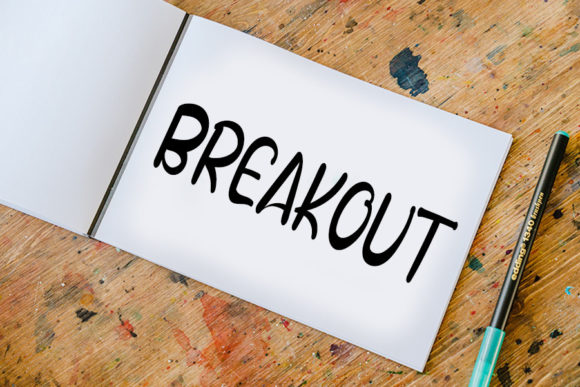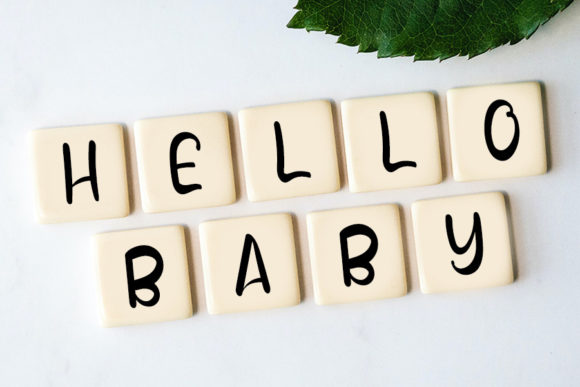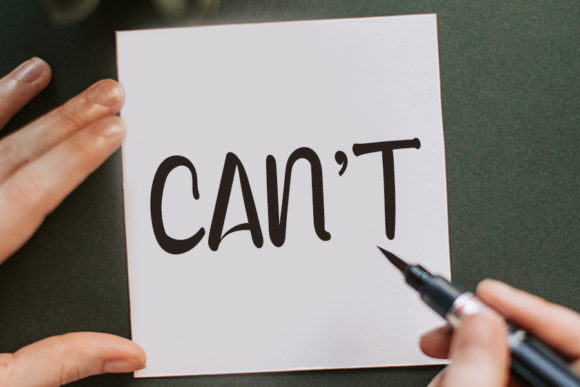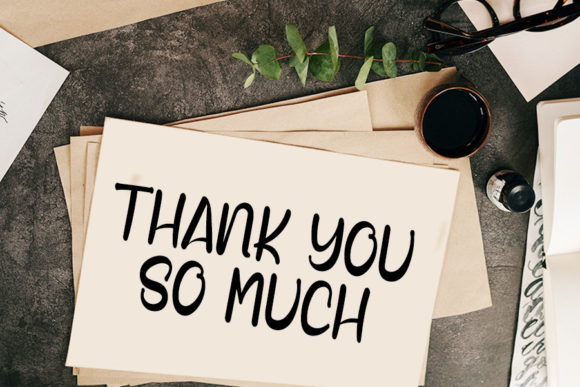
Introducing Happiness Font: The Perfect Blend of Playfulness and Sophistication
In the world of typography, fonts play a crucial role in conveying emotions and setting the tone for a project. If you’re a designer or crafter looking for a font that exudes happiness and joy, look no further than Happiness Font. This stunning display font is designed to bring a touch of playfulness and chicness to your projects, making it perfect for a wide range of applications.
A Contemporary Atmosphere with Impeccable Form
Happiness Font boasts a contemporary atmosphere that is both modern and stylish. Its impeccable form ensures that it is balanced and varied, making it suitable for use in a variety of contexts. Whether you’re working on a branding project, a website, or a craft project, this font is sure to impress. Its clean lines, subtle curves, and carefully crafted letterforms come together to create a truly unique and captivating typographic experience.
A Paint Brushed Font with a Personal Touch
One of the standout features of Happiness Font is its paint brushed design. This gives the font a personal and hand-crafted feel that is perfect for adding a touch of warmth and personality to your projects. The paint brushed effect also adds a level of texture and depth to the font, making it more visually interesting and engaging.
Balanced and Varied: The Key to Versatility
Happiness Font is designed to be balanced and varied, making it a versatile font that can be used in a wide range of applications. Its balanced design ensures that it is easy to read and understand, while its varied letterforms and ligatures add a touch of creativity and flair. This font is perfect for use in:
- Branding and logo design
- Website headers and titles
- Craft projects and DIY tutorials
- Print materials such as brochures and flyers
Enhance the Beauty of Your Projects
Happiness Font is designed to enhance the beauty of your projects and bring a touch of happiness and joy to your designs. Its playful and chic design makes it perfect for use in projects that require a lighthearted and upbeat tone. Whether you’re working on a project for a client or creating something for personal use, this font is sure to bring a smile to your face and inspire your creativity.
Why Choose Happiness Font?
So why choose Happiness Font over other fonts on the market? Here are just a few reasons:
- Unique and eye-catching design
- Playful and chic aesthetic
- Contemporary atmosphere and impeccable form
- Balanced and varied design
- Paint brushed effect for a personal touch
- Versatile and suitable for a wide range of applications
Get Ready to Add a Touch of Happiness to Your Designs
In conclusion, Happiness Font is a stunning display font that is perfect for designers and crafters looking to add a touch of playfulness and sophistication to their projects. Its contemporary atmosphere, impeccable form, and paint brushed design make it a truly unique and captivating typographic experience. With its versatility and balanced design, this font is suitable for use in a wide range of applications. So why wait? Get ready to add a touch of happiness to your designs with Happiness Font.